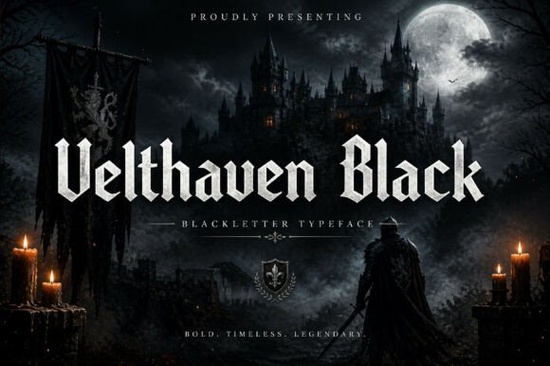
If you're looking for a bold, dramatic font that commands attention and sets a dark, medieval mood, Velthaven Black is a strong choice. This blackletter typeface stands out with its heavy, aggressive strokes and weathered texture perfect for projects that need an ancient, powerful feel. Whether you’re designing book covers, band logos, or apparel, Velthaven Black brings a sense of timeless mystery and structural strength to your work.
What makes Velthaven Black different from other blackletter fonts?
While many blackletter fonts focus on historical accuracy or ornate details, Velthaven Black leans into a more intense, almost weapon-like presence. The characters have sharp, broken edges and a stamped, rough texture that mimics aged metal or carved stone. This gives the font a raw, unrefined energy that’s ideal for dark fantasy themes.
The verticality of the letters adds to the impact each line feels like it’s standing tall, unyielding. It’s not just a font; it’s a statement. You’ll notice how even small text becomes visually dominant when set in Velthaven Black, making it great for headlines, titles, and branding elements where you want every word to feel significant.
Where can you use Velthaven Black effectively?
- Dark fantasy novel covers – Give your book a legendary look that matches the story’s tone.
- Metal band logos and merch – Perfect for creating a menacing, authentic vibe.
- Cinematic game titles and UI elements – Add gravitas to opening screens or character names.
- Apparel design (t-shirts, hoodies, patches) – Stand out with bold, eye-catching typography.
- Poster art and event branding – Ideal for themed events like medieval fairs or horror conventions.
It’s also worth noting that this font works well in both digital and print formats, so whether you're printing on fabric or sharing online, the detail holds up. The high contrast between thick and thin lines ensures readability at various sizes, though it shines brightest in larger applications.
How does Velthaven Black fit into broader design trends?
Blackletter fonts are having a moment not just in niche markets, but across mainstream creative work. Designers are turning to them for their ability to evoke emotion and atmosphere quickly. Velthaven Black fits right into this trend with its unique blend of aggression and craftsmanship.
If you’ve explored similar styles, you might have come across other blackletter options on Creative Fabrica. Some users find that combining Velthaven Black with softer, complementary fonts helps balance the overall design especially if you're using it alongside modern sans-serifs or serif typefaces.
For those who love the same aesthetic but want a slightly different edge, Blood Throne offers a more ornamental take with intricate flourishes. But if you prefer something heavier and more direct, Velthaven Black delivers exactly that.
Final thoughts: Is Velthaven Black right for your next project?
If your goal is to create something that feels ancient, powerful, and unforgettable, then yes this font is a solid pick. It’s not subtle, but it doesn’t need to be. Its strength lies in its confidence and presence. Use it when you want your message to stand out, not blend in.
Before you commit, try it in a few test designs. See how it works with your color scheme, background, and other text elements. Sometimes the best results come from pairing it with clean, minimal layouts that let the font shine.
- Try Velthaven Black in large headings or titles first.
- Pair it with a simple sans-serif font for contrast.
- Use it on dark backgrounds to emphasize the texture and weight.
- Test it at different sizes smaller text may lose some detail.